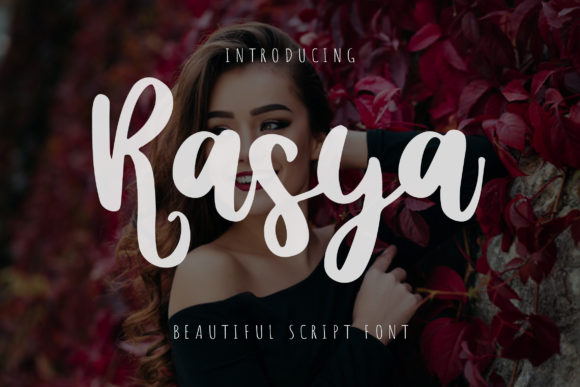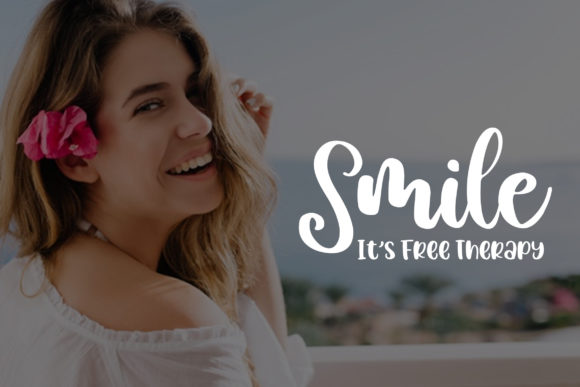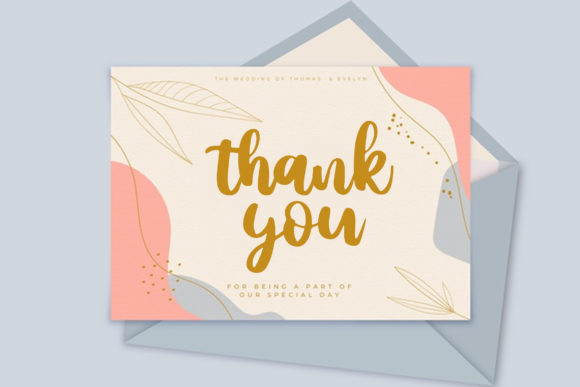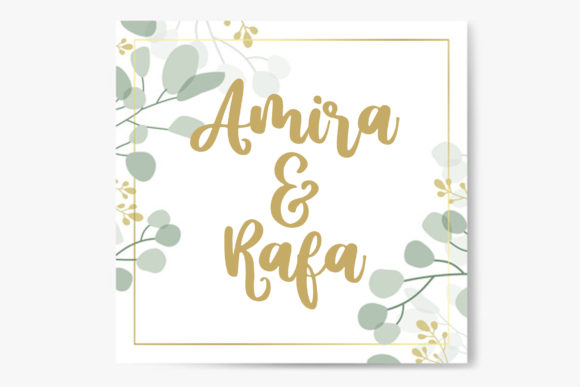
Rasya Font
About Rasya Font
Rasya is an exciting handwritten font that brings elegance, luxury, and a modern vibe to your text. With its beautiful and well-crafted characters, this font is perfect for a wide range of design projects, including branding, logos, book covers, T-shirt designs, social media posts, advertisements, product packaging, and more.
The unique style of Rasya adds a touch of sophistication and refinement to your designs. Its flowing and graceful letterforms create a sense of movement and visual interest, making your text captivating and visually appealing. Whether you’re creating a logo for a high-end brand or designing an eye-catching book cover, Rasya’s elegant appearance will leave a lasting impression.
The versatility of Rasya allows it to adapt to different design styles and contexts. Its modern and sleek aesthetic makes it suitable for contemporary and minimalist designs, while its elegance and luxurious vibe also work well with more elaborate and decorative styles. This flexibility ensures that Rasya can complement your creative vision and enhance your overall design concept.
Using Rasya in your projects allows you to convey a sense of sophistication and professionalism. Its legibility ensures that your message is clear and easy to read, while the unique character design adds a touch of personality and style. Whether it’s a social media post, a product label, or a promotional banner, Rasya will make your text stand out and grab attention.
Furthermore, Rasya’s versatility extends to different media and platforms. It looks great both in print and digital formats, allowing you to maintain consistency across various channels. Whether you’re designing for a website, an online advertisement, or a physical product, Rasya will bring a touch of elegance and modernity to your project.
In conclusion, Rasya is an exciting handwritten font that adds elegance, luxury, and a modern touch to your text. Its beautiful characters and versatile style make it suitable for a wide range of design projects. Embrace the elegance of Rasya and let it elevate your branding, logos, book covers, and more to new heights of sophistication.